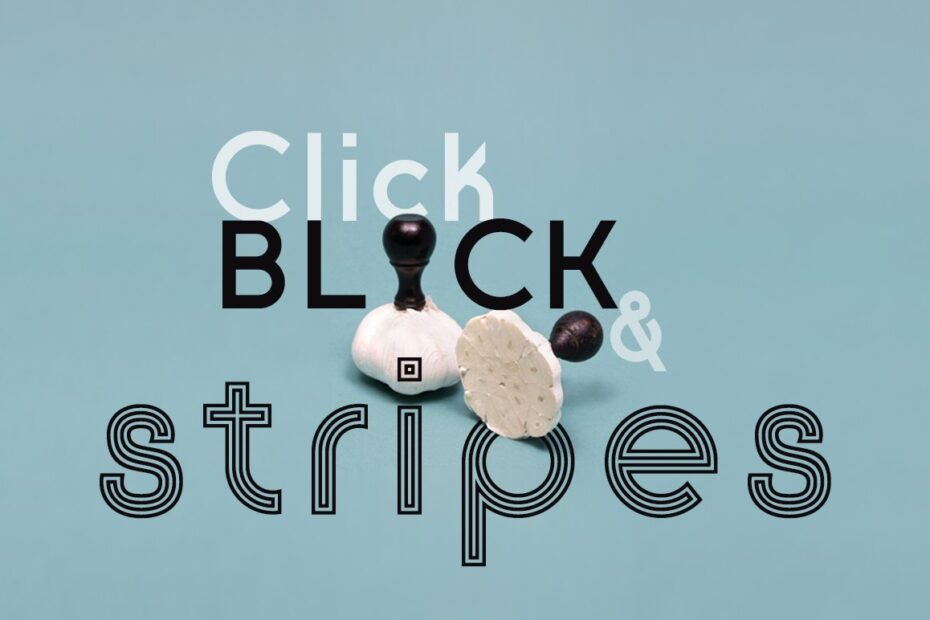
Have you ever been stuck on a design project, staring at a blank page, desperately searching for the right font to bring your vision to life? You’re not alone. As designers, we’ve all been there, pouring over font libraries, trying to find that perfect combination of style and functionality.
Enter the Click Black & Stripes Font, a set of two display fonts based on the popular Click Sans Serif. Designed to make a statement, this font is perfect for adding a touch of sophistication and elegance to your next project. Whether you’re working on a logo, brochure, or website, Click Black & Stripes Font is sure to elevate your design game.
Key Features of Click Black & Stripes Font
- Font Style: Click Black & Stripes is a sans-serif font with a bold and modern design, featuring a unique black and white striped pattern.
- Unique Characteristics: The distinctive black and white striped pattern adds a touch of modernity and sophistication to any design, making it perfect for headlines, titles, and other prominent text elements.
- Font Weight and Width: Available in multiple weights (Regular, Bold, Light) and widths (Condensed, Normal, Extended) to accommodate various design requirements.
- Language Support: Supports a wide range of languages, including Latin, Cyrillic, and Greek scripts, making it a versatile font for global applications.
Designer Review: Click Black & Stripes Font
Overall, I’d say that Click Black & Stripes is a decent font, but it has some notable flaws. Let’s dive in and explore both the good and the bad.
- Distinctive aesthetic: The black and stripes pattern gives the font a unique and eye-catching appearance.
- Wide character set: The font includes a comprehensive character set, covering most languages and special characters.
- Limited legibility: The black and stripes pattern can make the text difficult to read, especially at smaller font sizes.
- Overuse risk: The font’s distinctive look may become too attention-grabbing if overused, potentially detracting from the message.
- Not ideal for body text: While Click Black & Stripes works well for headlines and titles, it’s not the best choice for body text due to its busy pattern.
Overall, I’d recommend Click Black & Stripes for specific design projects where its unique look is a key element. However, it’s essential to use it judiciously and balance its visual impact with legibility and readability.
For best results, use the font in headings and titles to create a bold and eye-catching effect.
Use the font in combination with bold lines and graphics to create a striking visual impact.
Use the font in headings and titles to create a bold and professional look.
The Click Black & Stripes font is ideal for:
Branding and logos
Advertising and marketing materials
Editorial and publishing
Use the font to create a bold and eye-catching visual impact in your designs.
Alternatives to Click Black & Stripes Font for Designers
Montserrat is a sans-serif font that is highly legible and versatile. It’s perfect for use in digital products, advertising, and editorials. Montserrat is a more modern and sleek alternative to Click Black & Stripes Font, with a wider range of weights and styles.
Comparison: Montserrat has a more geometric and minimalist aesthetic compared to Click Black & Stripes Font’s industrial feel. Montserrat is also more suitable for digital use, while Click Black & Stripes Font is more commonly used in print media.